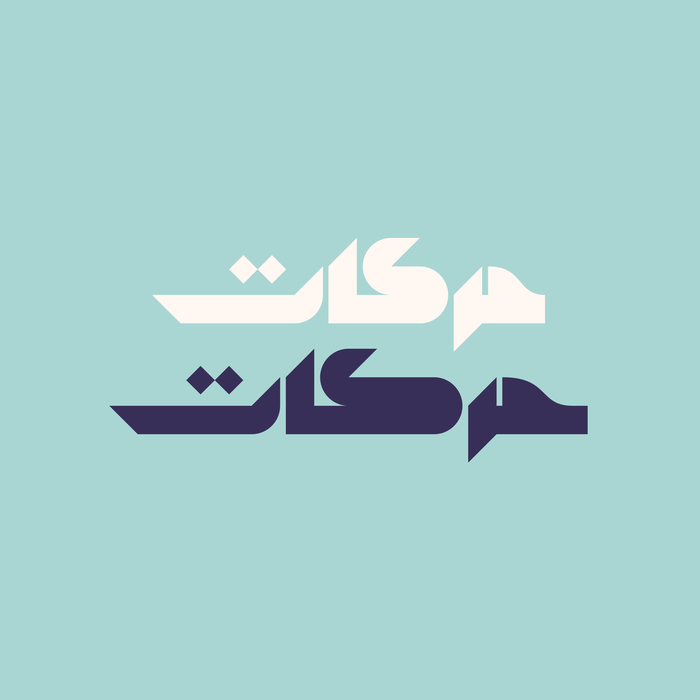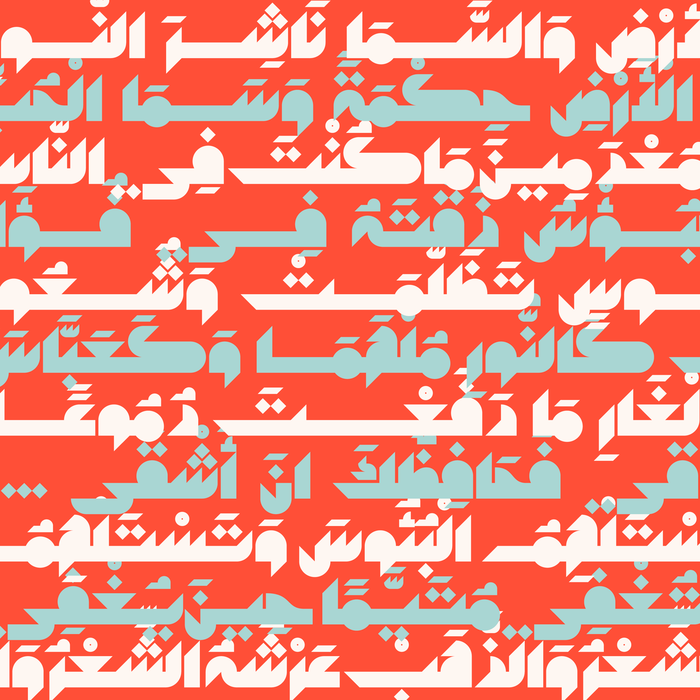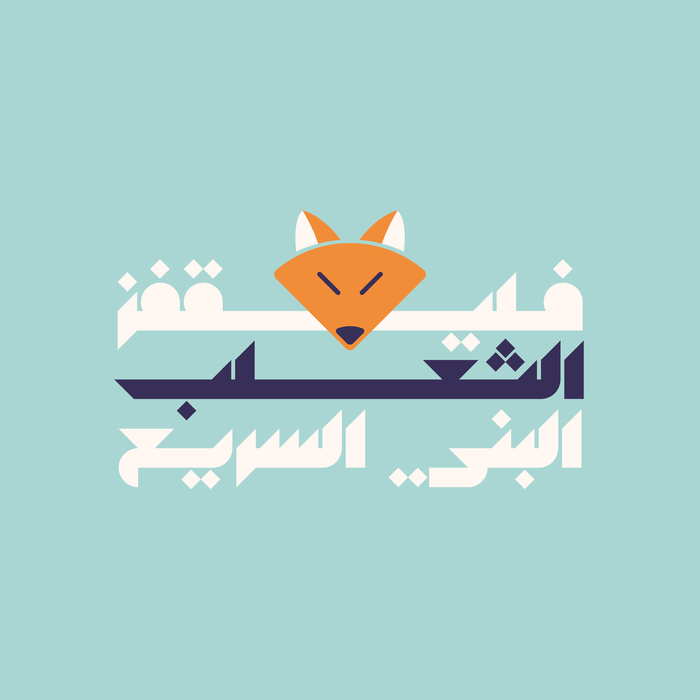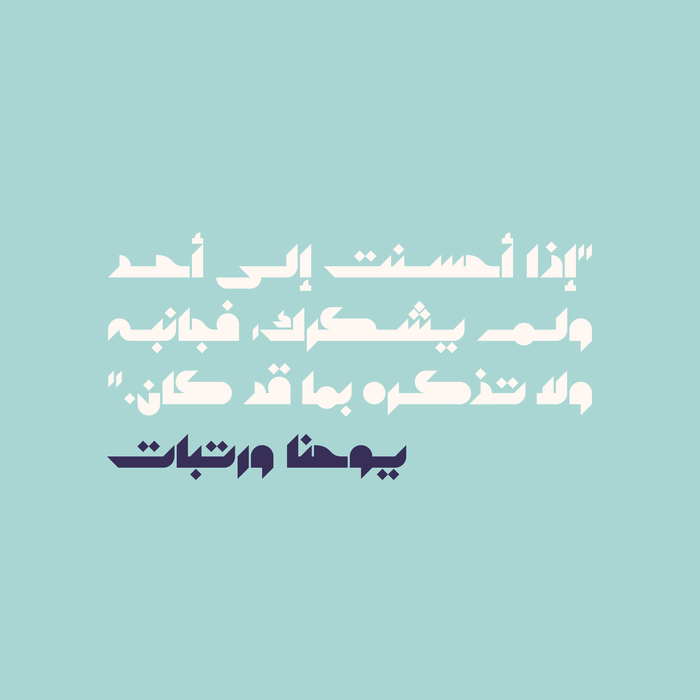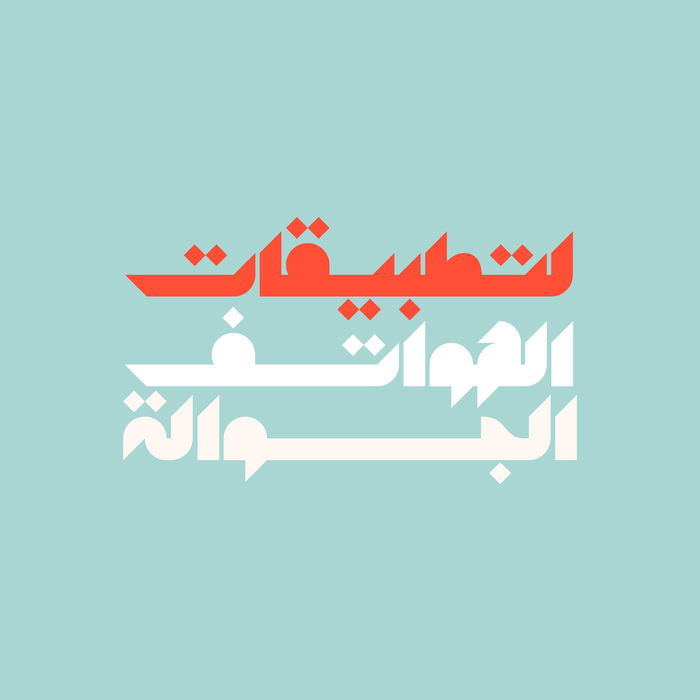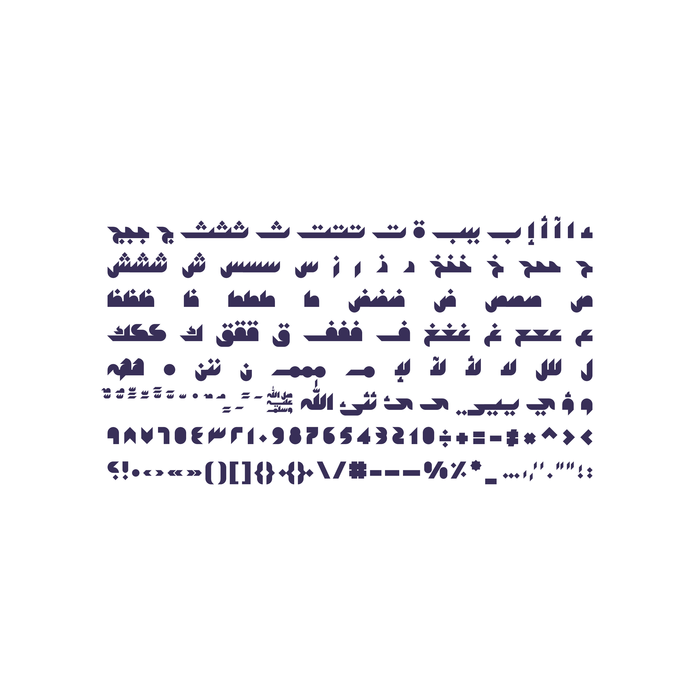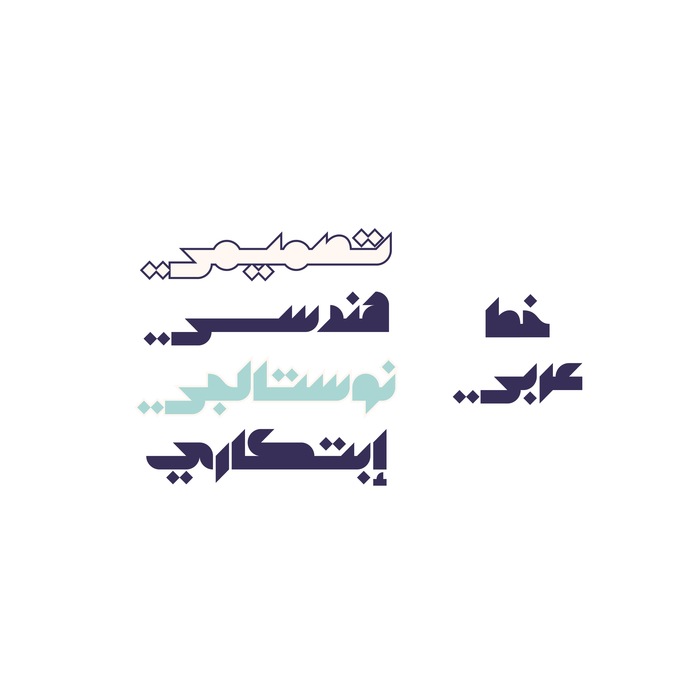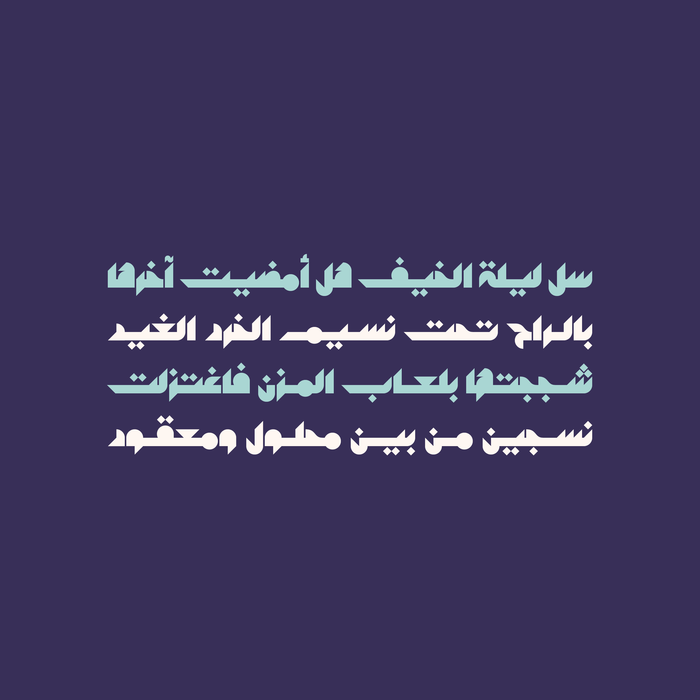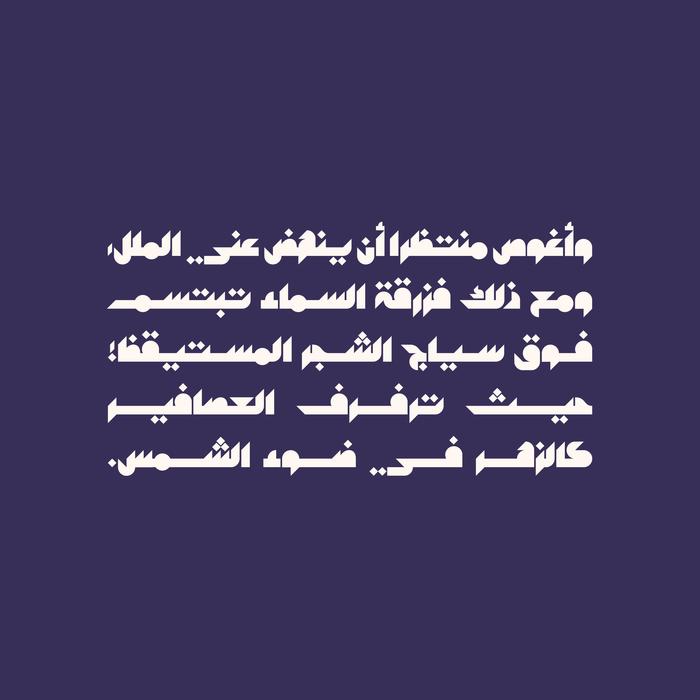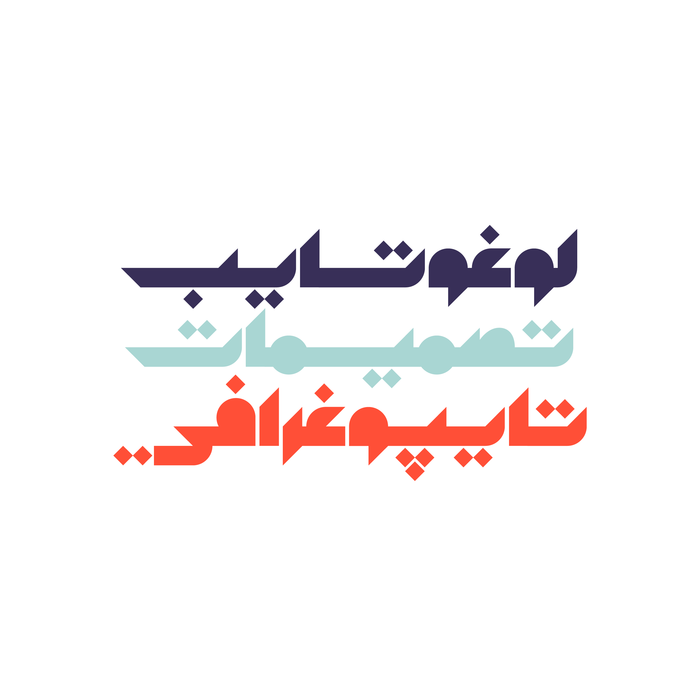
Mostaqbali - Arabic Font
Mostaqbali (which is the Arabic word for Futuristic) is an Arabic display font that features solid geometric structure. The design reflects a futuristic style of Arabic letters even though it is inspired by retro opaque letterforms. Mostaqbali font suits a various range of modern design projects including web, print and mobile applications.